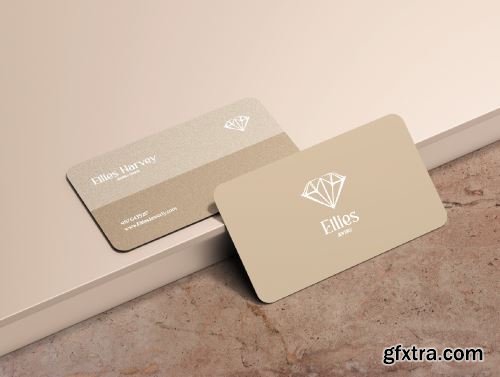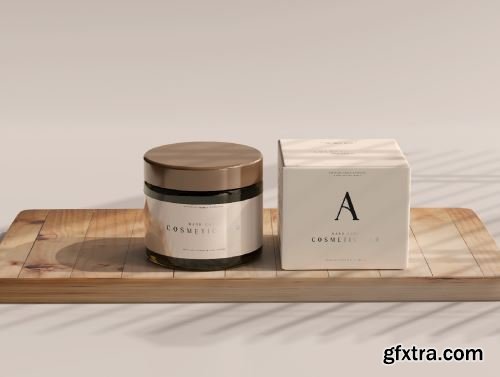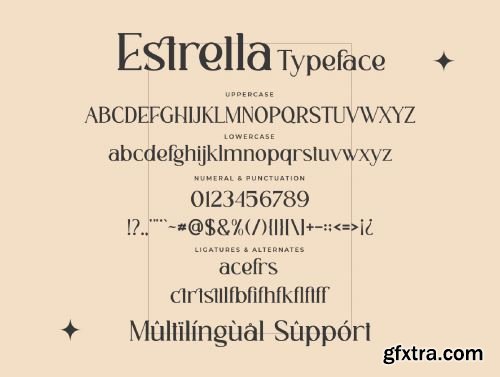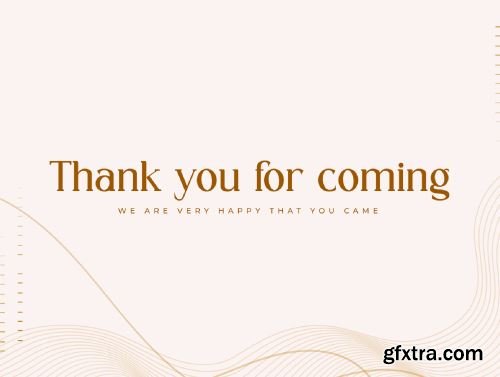
Estrella Stylish Ligature Typeface, inspired by the famous minimalist logo perfect for the purposes of designing templates, brochures, videos, advertising branding, logos and more.